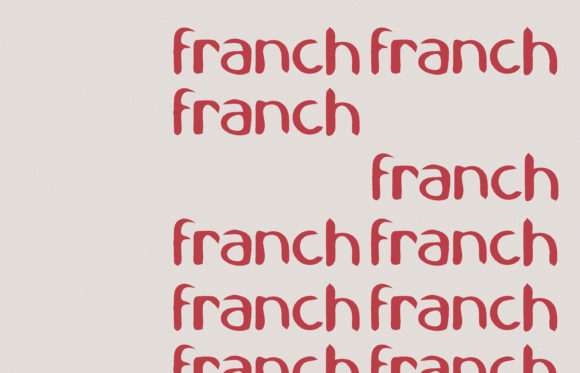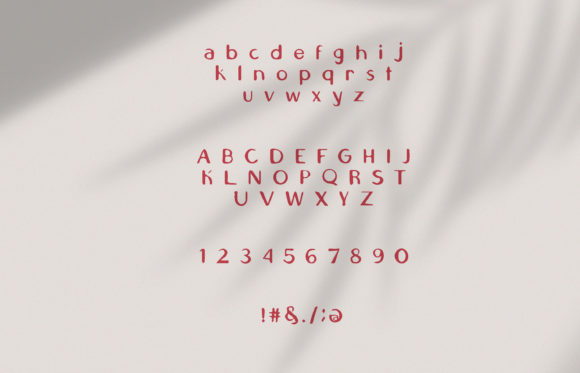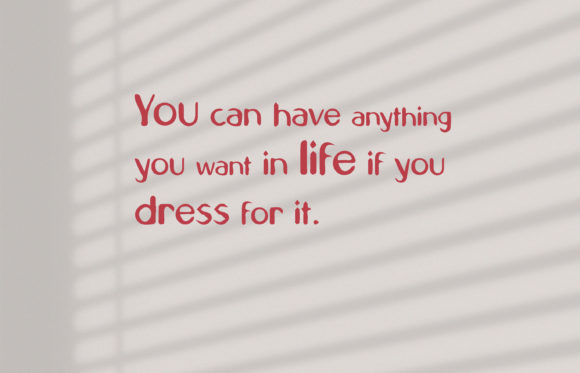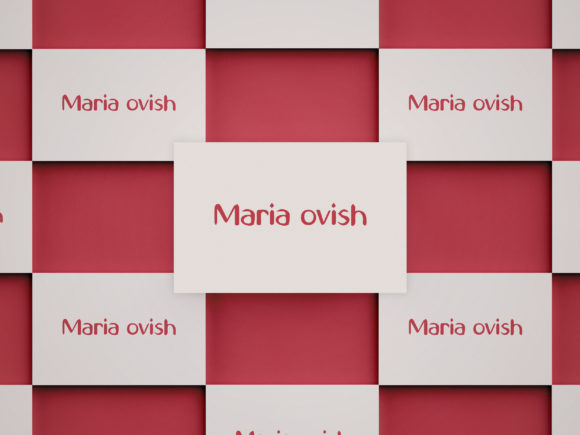
Introduction to Kenta Font
Kenta is a casual display font.
Clean and a little bit quirky, this font is the perfect fit for all of your logos, branding, social media, and crafty DIY projects .